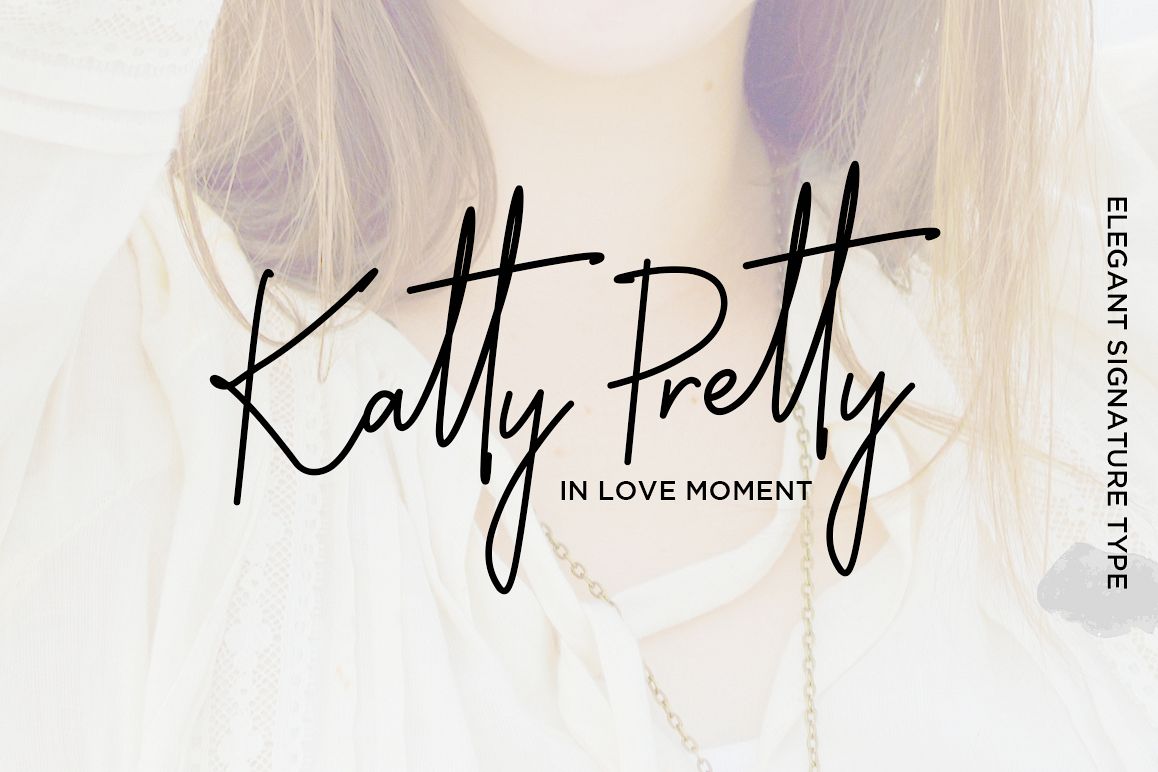
Katty Pretty
Introducing the new ‘Katty Pretty’
script font - A fashionable new handwriting font script with some sexy stylish
extras:)
Katty Pretty’s font was created to look as close to a natural handwritten
script as possible by including over 74 ligatures.
With built in Opentype features,
this script comes to life as if you are writing it yourself.
When creating the font, we should take into consideration that each letter
should be able to be connected with other letters. For example, letter
"a" should be well connected as well as with "l" and
"n" and with any other letters. This limits us: we have to start
letter from exact one point and finish in exact second point. So here come
ligatures. I surveyed mostly common letter combinations and made 74 Discretionary ligatures with following letter combos:
af at att bb bl ct ef el ell et ett ft gt it itt ll nt of ot pl st tt ut wh
(in Katty Pretty)
af at att bb bl ct ef el ell et ett ft gt it itt ll of ot pl st ut tt wh (in
Katty Pretty Alt)
By using these ligatures, you can give realistic handlettered style,
escaping font "pattern" effect